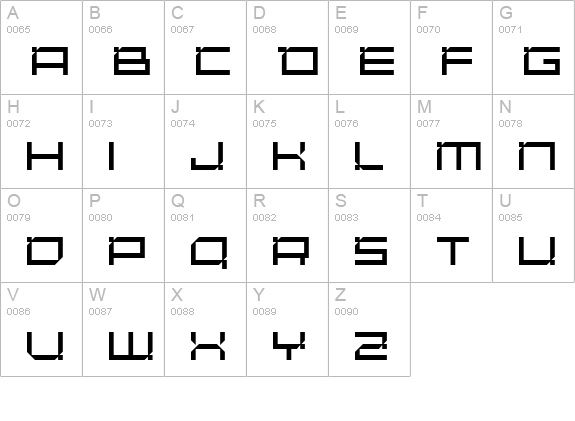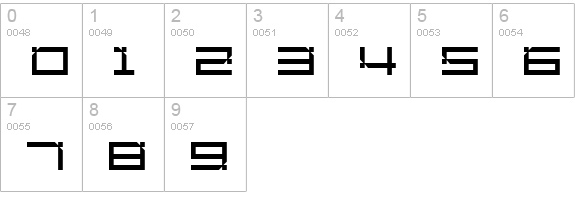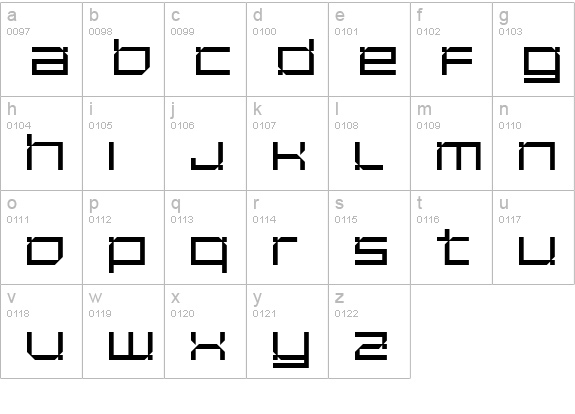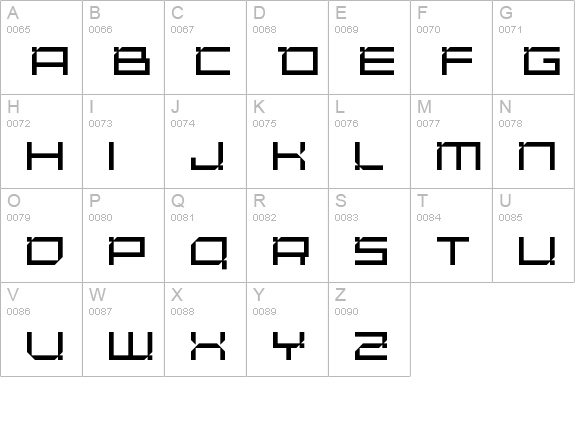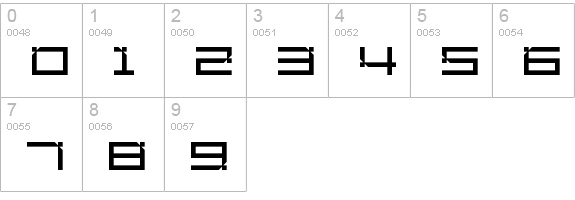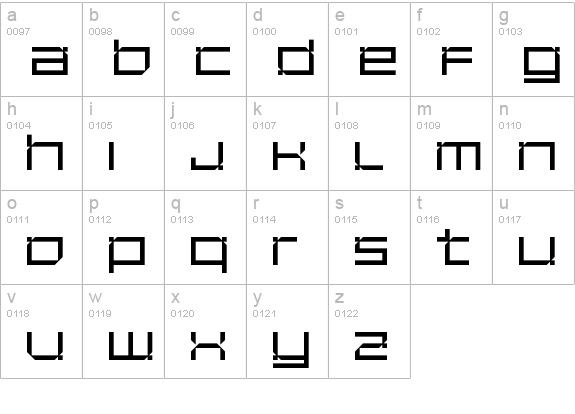
Unfinished SemiBold is a sub-bold, structured variant in the Unfinished typeface family \xE2\x80\x94 well suited to sub-headlines and emphasised passages.
Introducing Unfinished SemiBold, a striking and versatile font that captivates with its bold yet unfinished charm. This font exudes a sense of modernity and creativity, making it the perfect choice for a wide range of design projects. Unfinished SemiBold is characterized by its unique combination of clean lines and slightly rough edges, creating a distinctive visual appeal that catches the eye. Its semi-bold weight strikes a perfect balance between boldness and elegance, allowing it to make a strong statement without overpowering the overall design. This font is ideal for headlines, titles, logos, posters, and any other design element that requires a touch of boldness and sophistication. Its versatility allows it to seamlessly adapt to various design styles, whether it be a sleek and minimalist aesthetic or a vibrant and energetic composition. One of the most appealing aspects of Unfinished SemiBold is that it is freely available to download at FontsMarket.com. This means that you can easily incorporate this exceptional font into your projects without any additional cost. Its accessibility makes it a valuable asset for designers, students, and anyone seeking to enhance their creative endeavors. Unfinished SemiBold is more than just a font; it is a statement. It represents the limitless possibilities of unfinished creations and the beauty that lies within imperfections. Download Unfinished SemiBold today from FontsMarket.com and unleash your creativity with this free and captivating typeface.